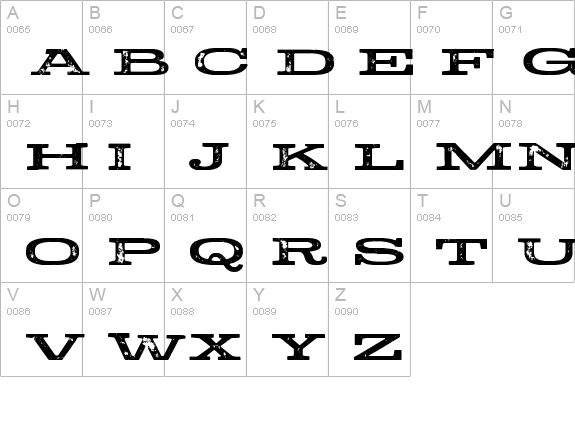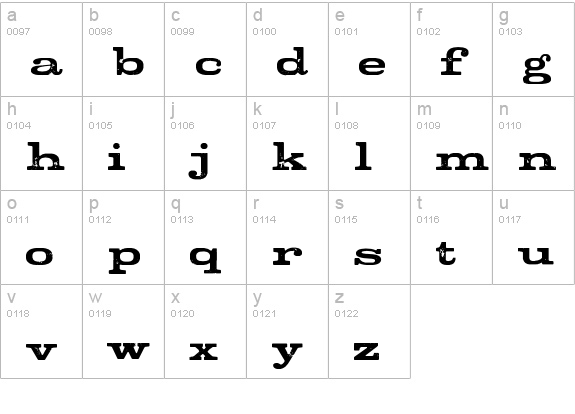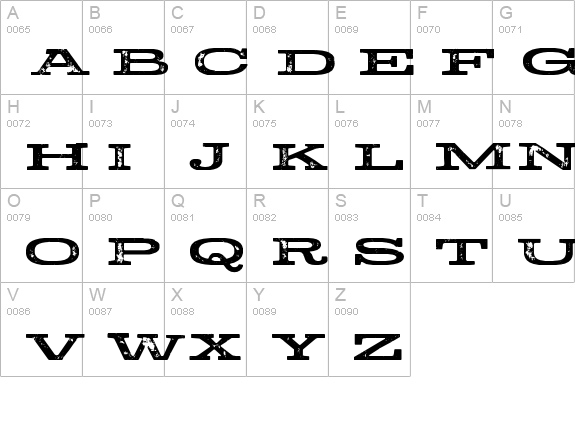
Stud font is a modern and stylish typeface that exudes confidence and sophistication. Its strong, bold lettering makes a statement while maintaining a sense of elegance. This versatile font is perfect for a wide range of design projects, from logos to branding to print materials. Best of all, Stud font is available for free download at FontsMarket.com. This means you can easily access this high-quality font without any cost, making it a valuable addition to your font library. Whether you're a designer looking to add some flair to your projects or a business owner in need of a striking font for your branding, Stud font is sure to impress. Download it today and elevate your designs with this unique and eye-catching typeface.